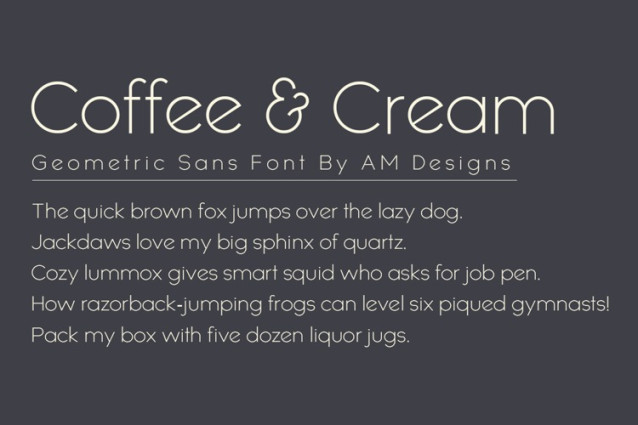
Coffee & Cream Font
Coffee & Cream Font is a modern sans-serif typeface that blends clean lines with a warm, inviting feel — just like the perfect cup of coffee with a splash of cream.
Perfect for:
Coffee shops, bakeries, and lifestyle branding
Packaging design
Aesthetic social media content
Wedding stationery & editorial design